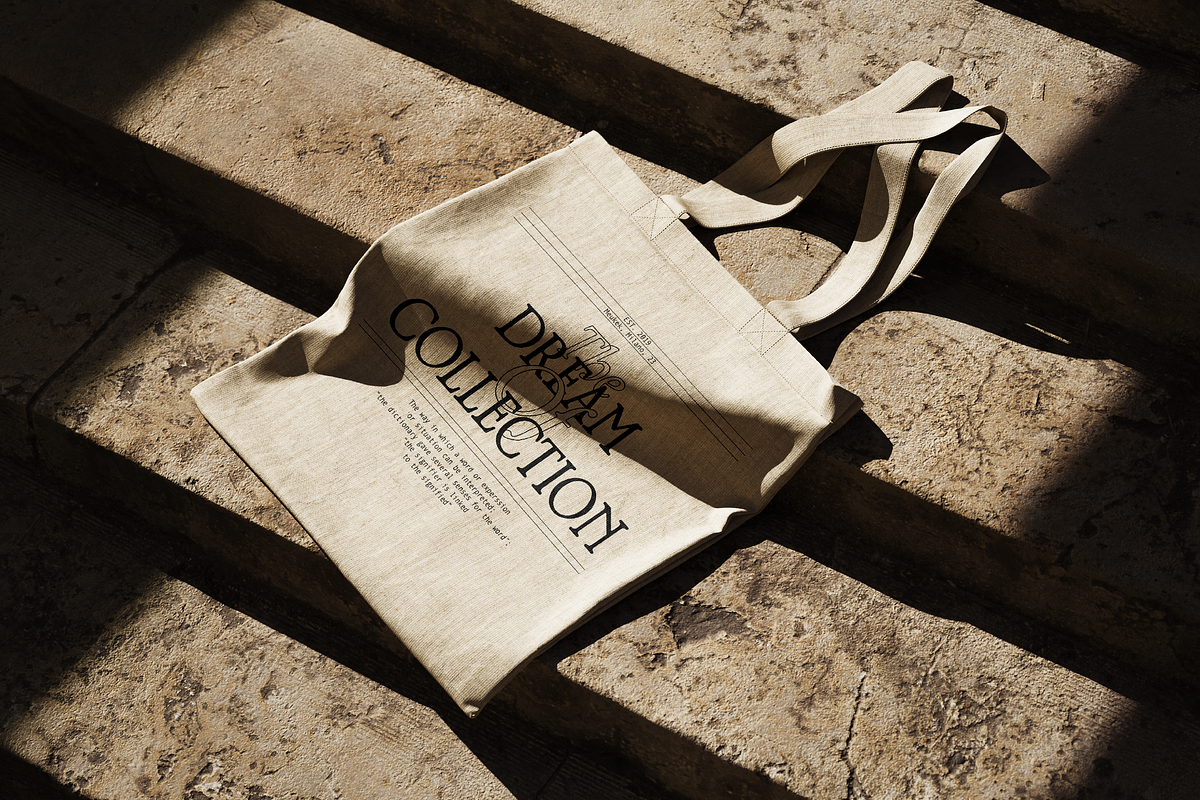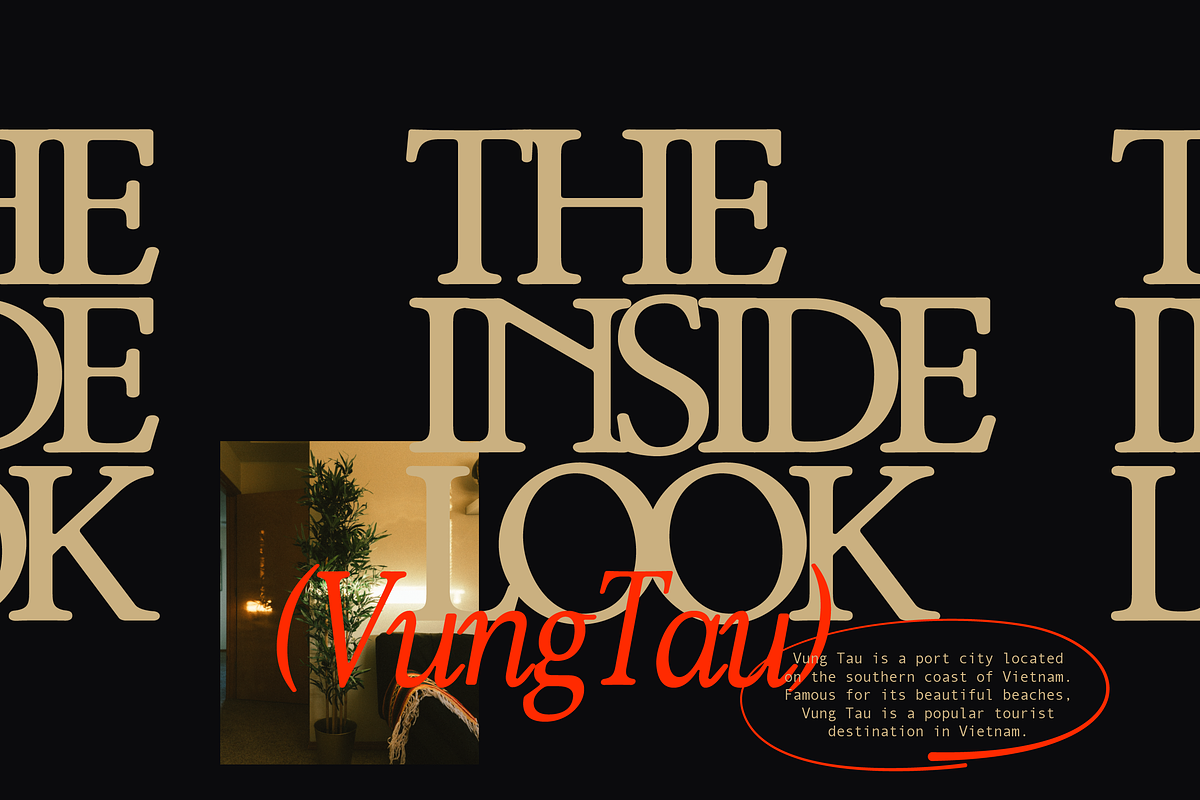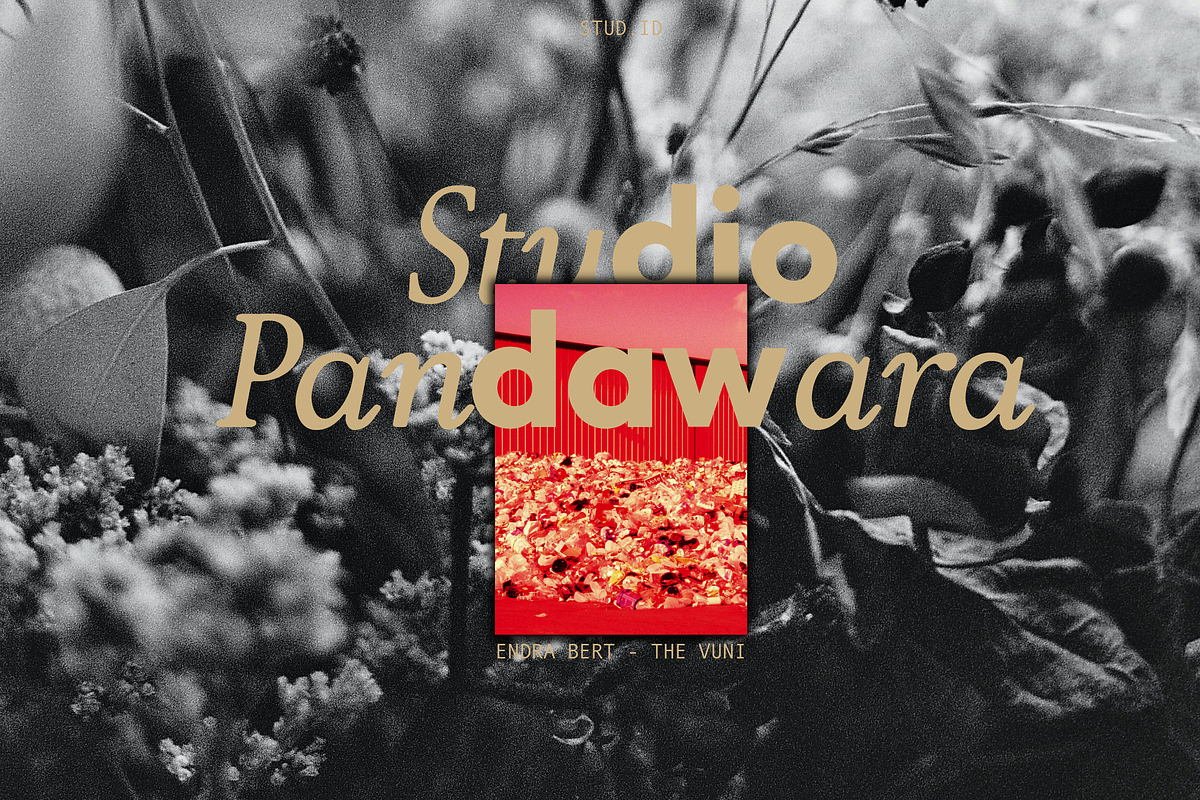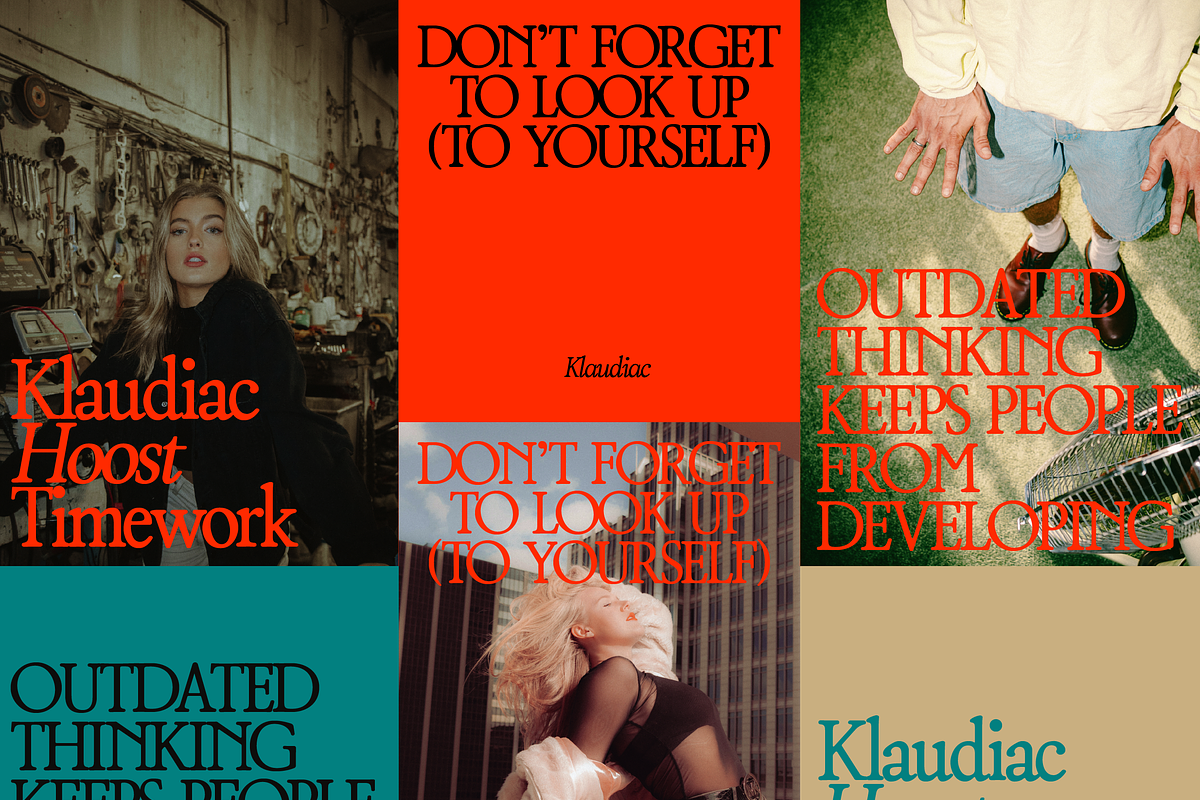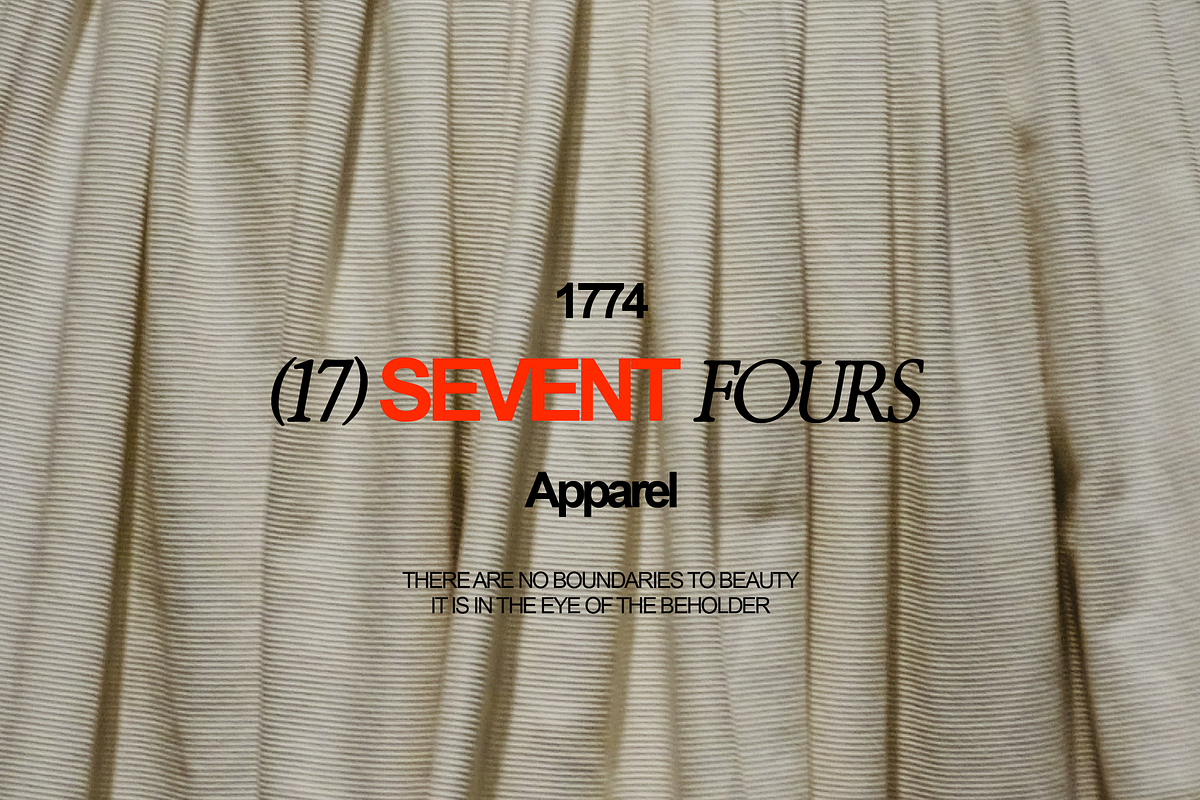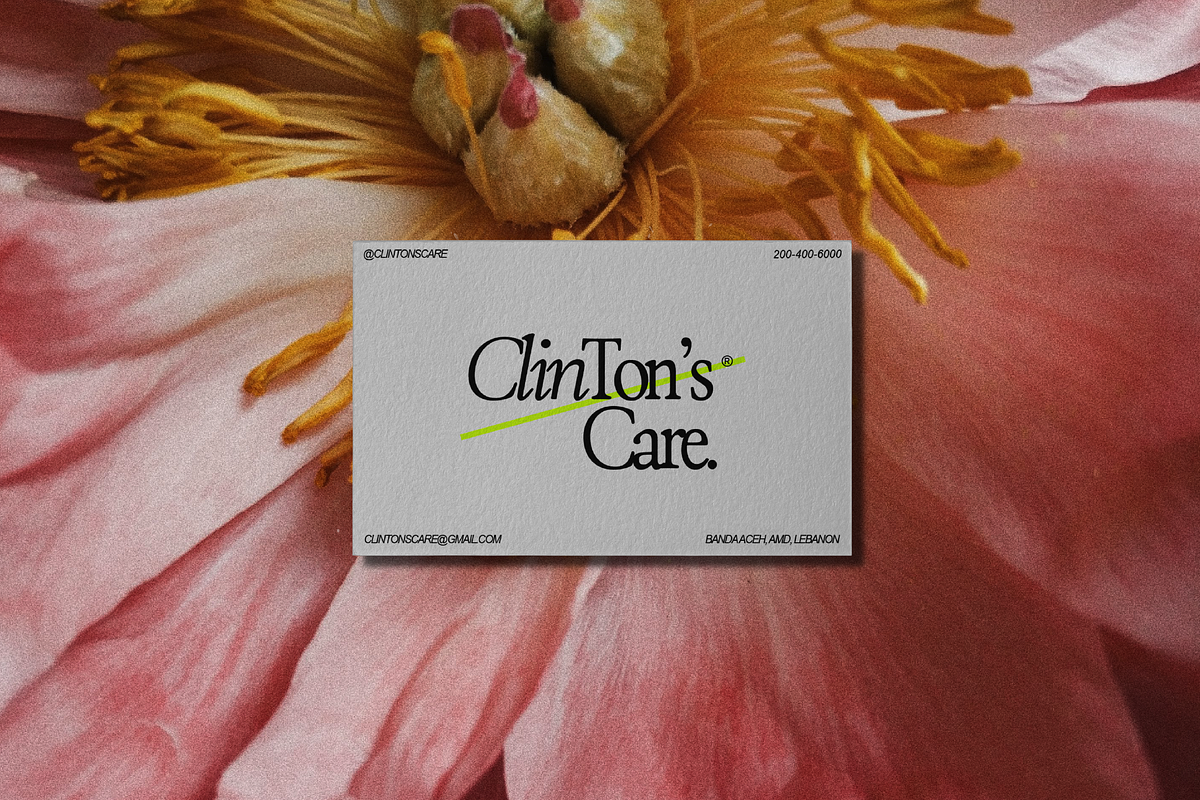
ZT Bros Oskon 90s - 72 Styles
ZT Bros Oskon 90s is a captivating typographic creation that seamlessly blends the aesthetic charm of the 1990s retro era with a modern touch. With unmatched serif elegance and a unique 90s style, this font offers 72 variations, including sharp condensed forms, graceful expansions, and captivating italic styles.
Every character in ZT Bros Oskon 90s is meticulously crafted, creating a vintage ambiance that is truly enchanting. Featuring 6 font weights ranging from Extra Light to Bold, this font provides you with the flexibility to create a wide range of striking and memorable designs.
Features of ZT Bros Oskon 90s:
72 Unique Variations
Aesthetic Retro Vibes from the 1990s
Elegant Serif Style
Condensed, Expanded, and Italic Forms
6 Font Weights: Extra Light, Light, Regular, Medium, Semi-Bold, Bold
Exceptional Creative Versatility
ZT Bros Oskon 90s is the perfect choice for graphic design projects, branding, posters, and other promotional materials that require a captivating retro touch. Unleash limitless creativity with this font and infuse a nostalgic 1990s vibe into every one of your creations.